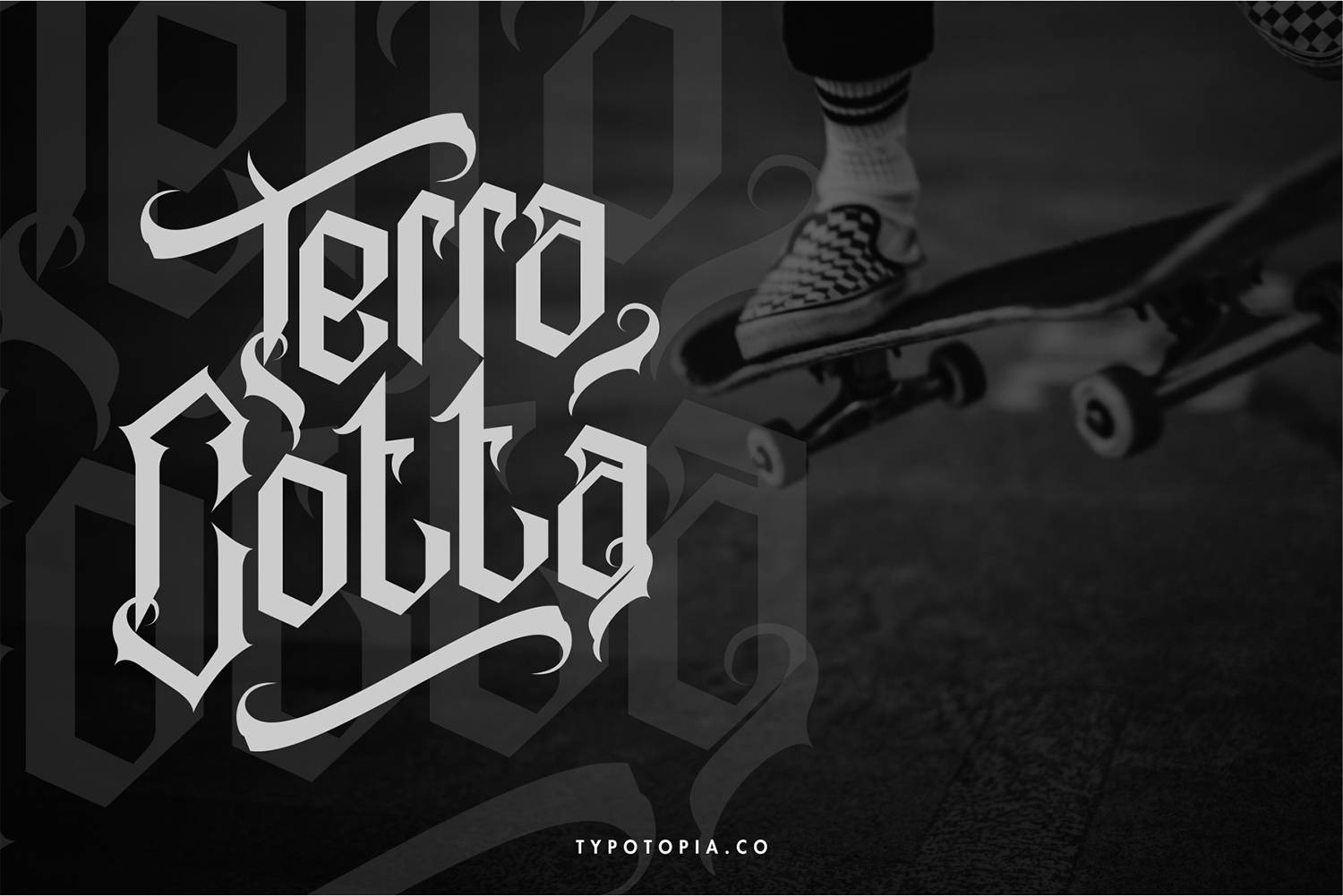
Alabasta is a blackletter-inspired serif font featuring tall, narrow letterforms with sharp, angular strokes and high contrast between thick and thin lines. Its decorative, gothic style evokes a vintage, medieval feel, making it ideal for projects seeking a dramatic, old-world aesthetic such as logos, headlines, or themed event invitations. With intricate detailing and a strong personality, it stands out best in larger sizes rather than body text.
Alabasta Font
About Alabasta Font